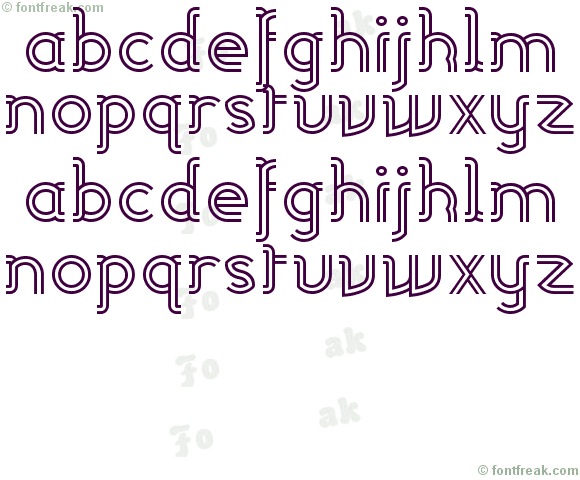
Linea
The Linea font by Benoit Sjoholm is a striking sans-serif typeface that seamlessly blends modernity with elegance. This unique font features a clean and minimalistic design, characterized by its consistent stroke weight and low contrast, making it versatile for various applications. The letters are well-spaced, contributing to readability while maintaining a contemporary aesthetic. Its simplicity is accentuated by subtle decorative elements that give it a distinctive flair, setting it apart from more traditional sans-serif options.
Linea is ideal for a variety of use cases. It shines in wedding invitations, where its elegant simplicity can add a touch of sophistication. The font also works beautifully for restaurant menus, allowing dish names to stand out while remaining easy to read. For graphic designers, Linea is perfect for branding projects, offering a modern touch that appeals to a wide audience. Additionally, it can be effectively used in social media graphics and promotional materials, capturing attention without overwhelming the viewer.
What sets the Linea font apart is its ability to convey a sense of modern elegance while remaining highly functional. The balance between its minimalistic design and subtle decorative features not only makes it visually appealing but also ensures versatility across different media. Whether you're designing a stylish logo or crafting an engaging social media post, the Linea font free download offers a perfect solution for elevating your design projects.